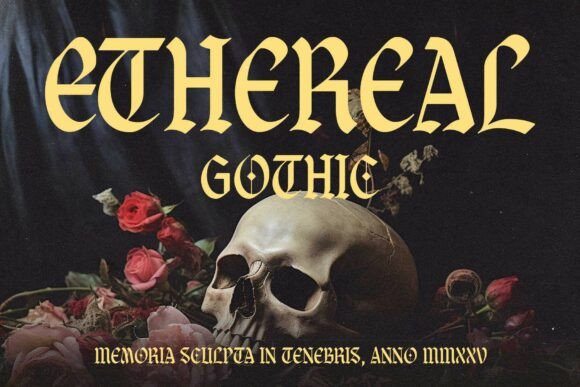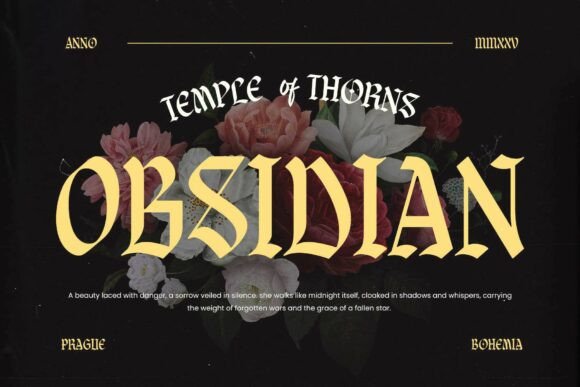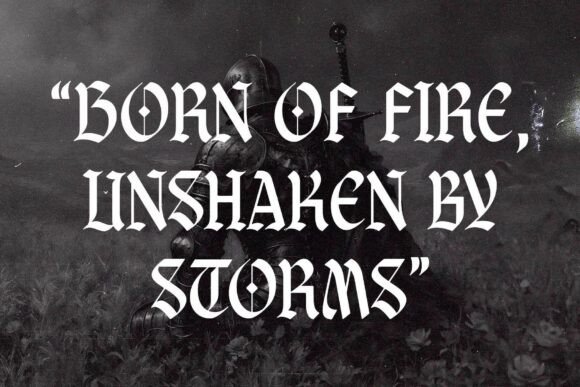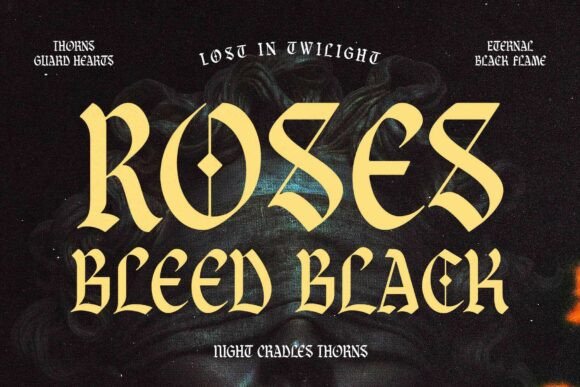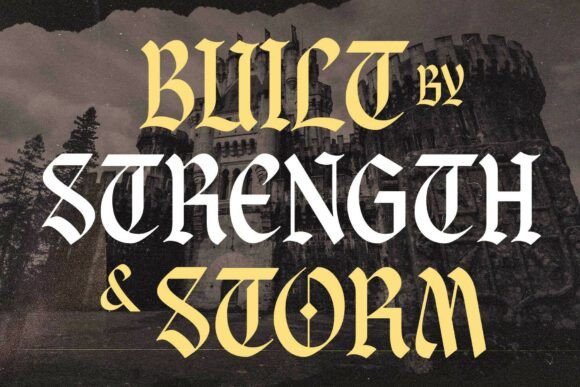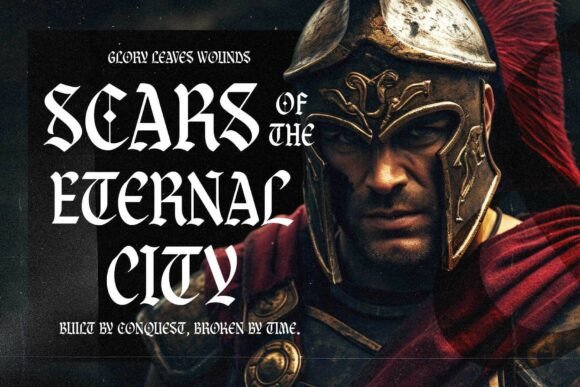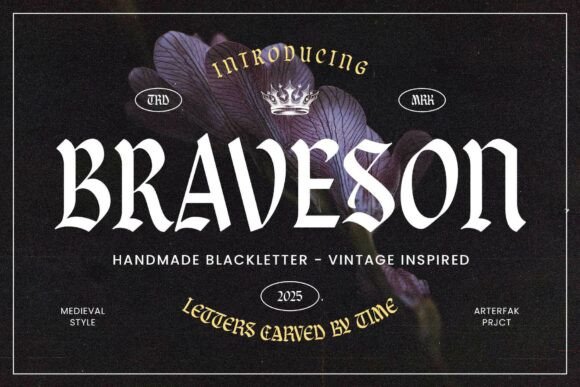
Braveson Font: Unleash the Power of Gothic Style in Your Designs
In the world of typography, a font can make or break the visual impact of a design. If you’re looking for a font that exudes strength, spirit, and style, look no further than Braveson Font. This all-caps blackletter font is inspired by vintage aesthetics and gothic style, making it perfect for designers and crafters who want to add a bold touch to their work.
The Inspiration Behind Braveson Font
Braveson Font is a unique blend of various blackletter traditions, carefully crafted to create a distinctive and striking font. The designer has skillfully reduced ornamental details, resulting in a clean and modern take on the classic blackletter style. This font is not just a nostalgic nod to the past, but a fresh and contemporary interpretation of gothic typography.
Key Features of Braveson Font
- All-caps design: Braveson Font is an all-caps font, making it perfect for headlines, titles, and display purposes.
- Blackletter style: Inspired by vintage aesthetics and gothic style, Braveson Font adds a touch of elegance and sophistication to any design.
- Multilingual support: With multilingual support, you can use Braveson Font to create designs that cater to a global audience.
- Stylistic alternates: The font comes with stylistic alternates, giving you the flexibility to fine-tune your typography and create unique designs.
Use Cases for Braveson Font
Braveson Font is a versatile font that can be used in a variety of design projects, including:
- Headlines and titles: Use Braveson Font to create bold and eye-catching headlines that grab attention.
- Logos and branding: The font’s unique style makes it perfect for logos and branding projects that require a distinctive touch.
- Apparel and merchandise: Braveson Font is ideal for designing apparel, stickers, and other merchandise that requires a bold and striking font.
- Illustrations and posters: The font’s gothic style and vintage aesthetic make it perfect for illustrations, posters, and other display purposes.
Why Choose Braveson Font?
In a world where typography plays a crucial role in design, Braveson Font stands out from the crowd. Here are some reasons why you should choose Braveson Font for your next design project:
- Unique style: Braveson Font’s distinctive blackletter style and reduced ornamental details make it a one-of-a-kind font.
- Flexibility: With multilingual support and stylistic alternates, you can experiment with different typography styles to create unique designs.
- Impactful: The font’s bold and striking design makes it perfect for creating designs that require a strong visual impact.
Braveson Font is a powerful and stylish font that can elevate your designs to the next level. With its unique blend of blackletter traditions, reduced ornamental details, and multilingual support, this font is perfect for designers and crafters who want to create bold and striking designs. Whether you’re working on a headline, logo, apparel, or illustration, Braveson Font is the perfect choice for adding a touch of gothic style and vintage aesthetic to your work.